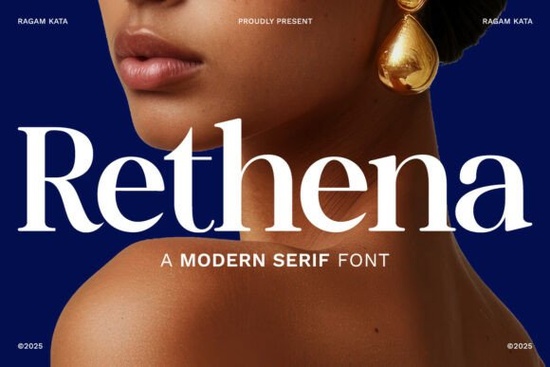
Choosing the right typeface for a luxury brand or editorial project can make or break the final result. Rethena Font is a bold, modern serif that brings a polished, high-end feel to any design. With its dramatic thick-and-thin strokes and refined serifs, it works beautifully for premium branding, fashion layouts, and glamorous print-on-demand products. If you've been searching for a serif that feels both classic and current, this one deserves a closer look.
What Makes This Serif Stand Out From Other Modern Options?
There's no shortage of elegant serif fonts available, so what sets this one apart? A few key design details make it a strong choice:
- High stroke contrast The dramatic difference between thick and thin lines gives each letter a sense of movement and luxury.
- Refined serifs with curved terminals Sharp at the baseline but softened with subtle curves, adding a sophisticated touch that feels less rigid than traditional serifs.
- Generous x-height Letters stay readable and commanding even at smaller sizes, though this typeface truly shines as a headline font.
- Bold, glamorous structure The overall weight and proportions give it a powerful presence on screen and in print.
These details come together to create a typeface that feels authoritative without being cold. It blends classic beauty with contemporary minimalism, which means it won't look dated in a year.
Where Does This Font Work Best?
This style of bold modern serif is a natural fit for projects that need to feel premium and polished. Here are some practical uses:
- Fashion editorial layouts Think magazine covers, lookbooks, and style guides where typography sets the mood.
- Luxury product branding Jewelry packaging, cosmetics labels, perfume boxes, and high-end skincare branding all benefit from this aesthetic.
- Website headers and hero sections A bold serif headline instantly tells visitors they're in a premium space.
- Corporate identity Business cards, letterheads, and brand decks that need a polished, assertive voice.
- Print-on-demand products Mugs, tote bags, and posters with elegant quotes or monograms look stunning with this kind of typeface.
- Wedding and event stationery Invitations, menus, and signage for upscale events.
If your project needs to communicate exclusivity or sophistication, this font does the heavy lifting for you.
How Does It Pair With Other Typefaces?
A bold serif like this pairs well with clean sans-serifs for body text. Think of it as the headline star it grabs attention, while a simpler secondary font handles longer paragraphs. For a cohesive look, try pairing it with a light geometric sans-serif or a delicate handwritten style for contrast.
Is It Suitable for Both Print and Digital Projects?
Yes. The clean, precise letterforms render well on screens at various resolutions and maintain their sharpness in print. This is important if you're designing across multiple touchpoints say, a brand that needs consistent typography on a website, social media graphics, and printed packaging. You won't need to swap typefaces between formats, which saves time and keeps the visual identity tight.
Who Should Consider Adding This to Their Toolkit?
- Graphic designers working on branding projects for premium clients
- Small business owners creating their own logos, packaging, or marketing materials
- Print-on-demand sellers who want designs that stand out in a crowded marketplace
- Crafters and hobbyists making invitations, quotes, or personalized gifts
- Social media managers who need scroll-stopping typography for Instagram or Pinterest